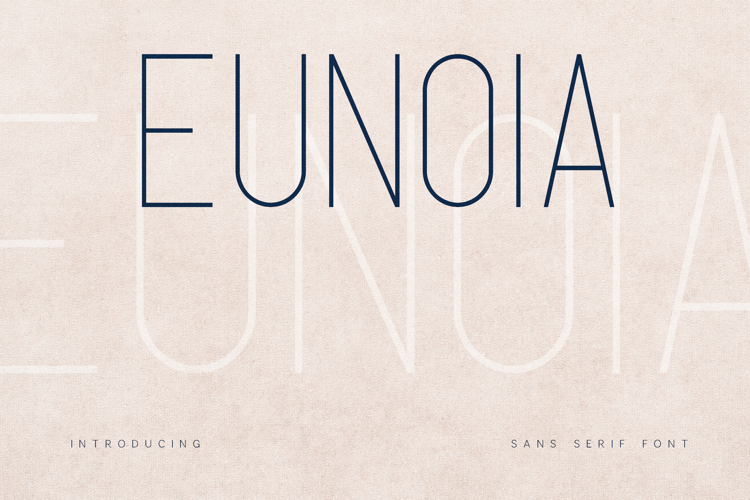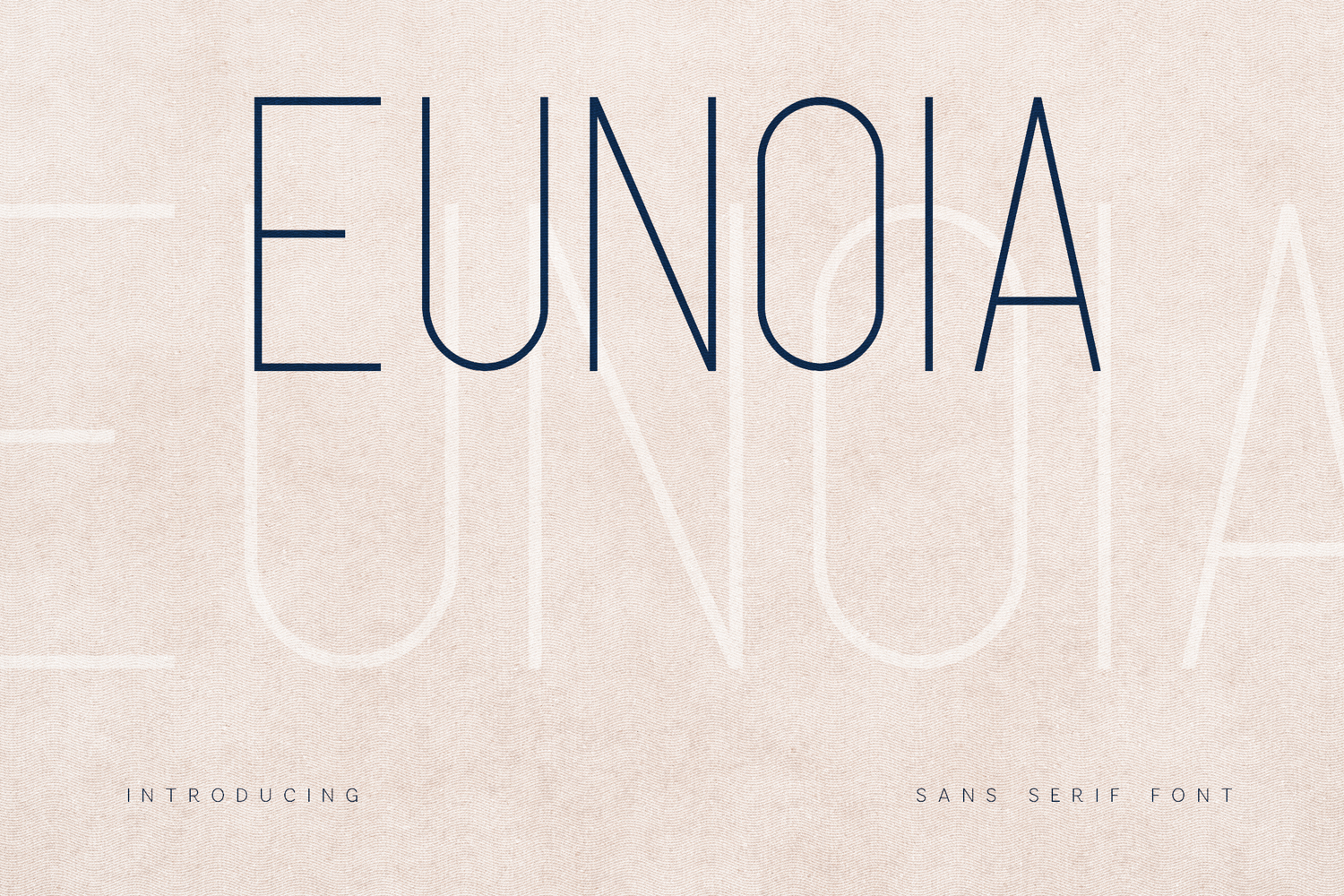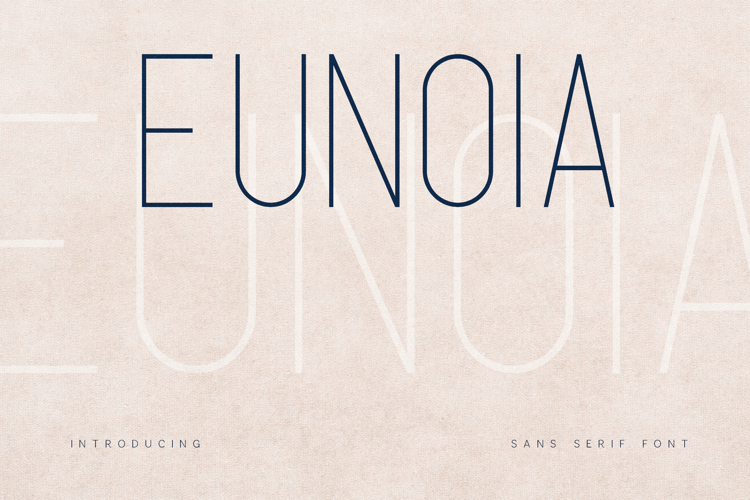
Eunoia Minimal Elegant Sans Serif Font
Eunoia is a refined minimal sans serif typeface designed with elegance, clarity, and modern simplicity in mind. Its thin strokes, clean geometry, and balanced proportions create a sophisticated typographic style that feels both contemporary and timeless.
The font features tall letterforms and generous spacing, giving designs a light and airy aesthetic. This makes Eunoia perfect for modern branding, editorial layouts, minimalist logos, packaging, and elegant visual identities.
Its clean structure ensures excellent readability while maintaining a distinctive design character that works beautifully in headlines, branding systems, and sophisticated layouts.
Eunoia is an excellent choice for designers looking to create refined typography for fashion brands, lifestyle products, luxury packaging, modern websites, and premium editorial projects.
The typeface includes uppercase and lowercase letters, numbers, punctuation, and multilingual characters, allowing it to support a wide range of international languages.
Whether used for minimalist branding, elegant typography, or modern editorial design, Eunoia adds a calm, stylish, and contemporary voice to your creative work.